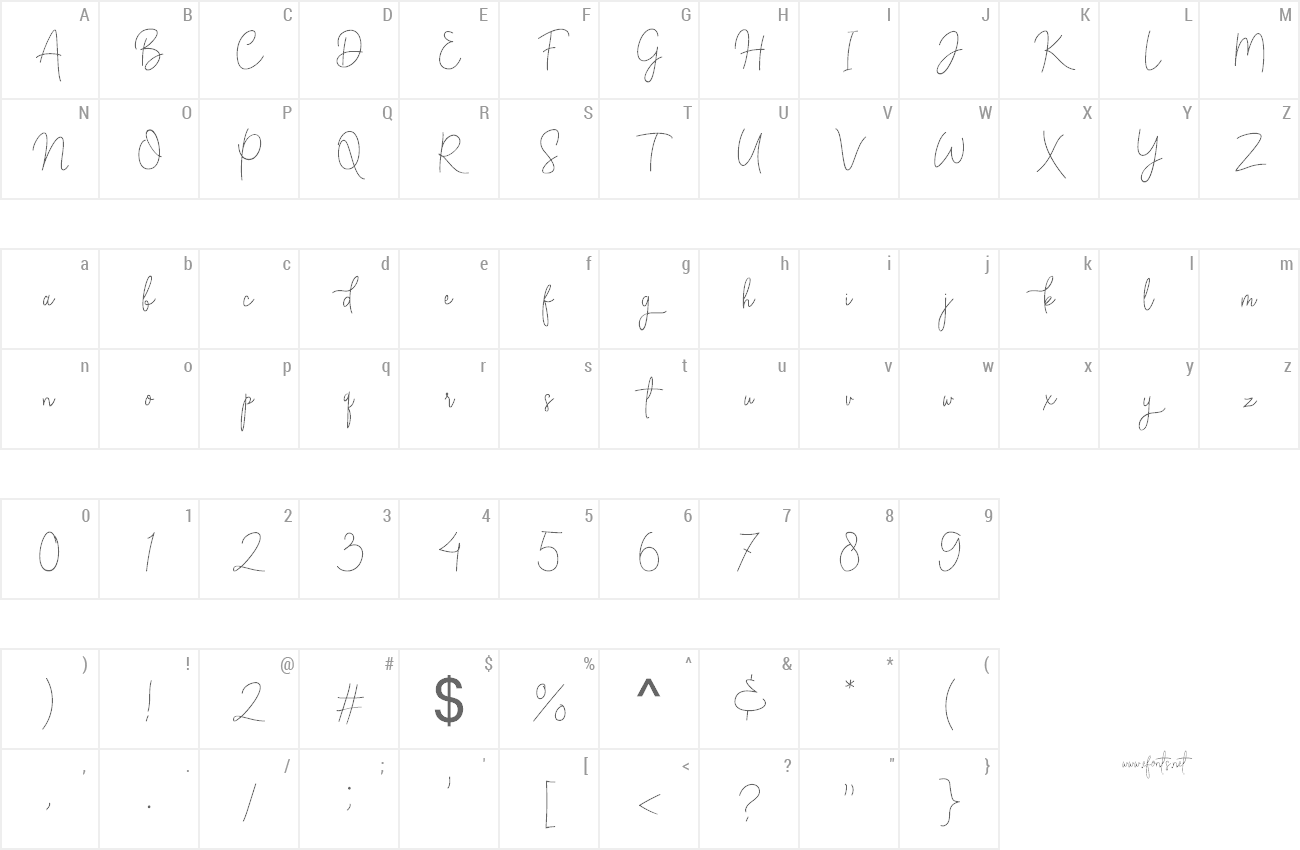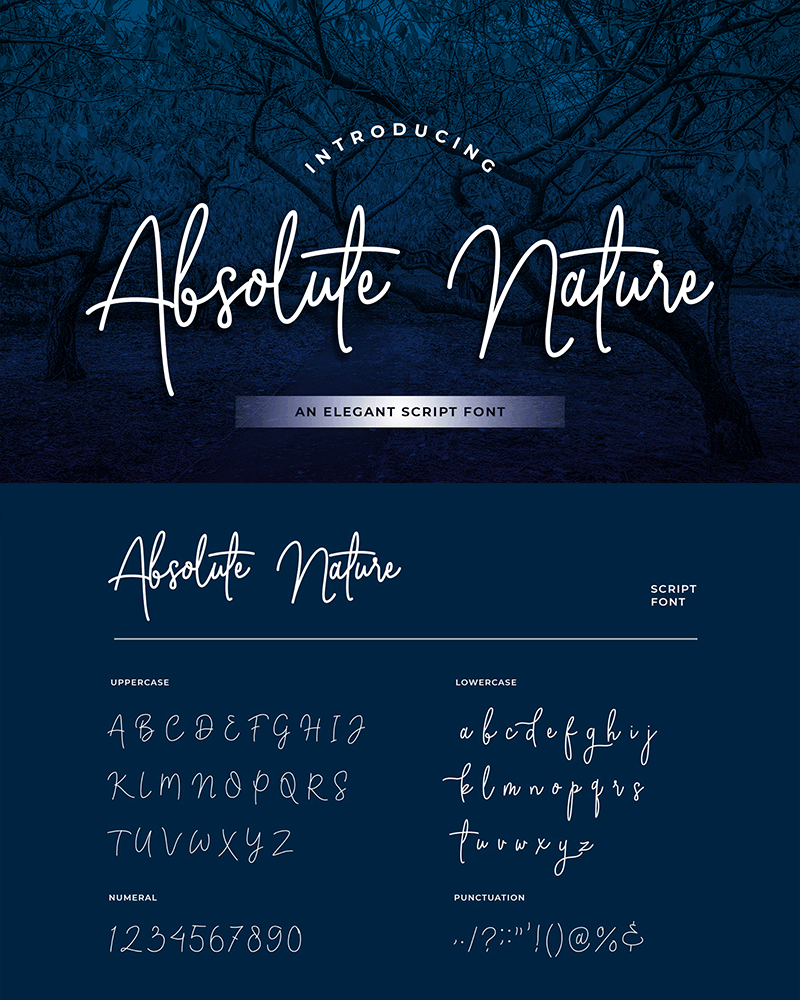
| Font name: | Absolute Nature |
| Author: | UI Creative |
Absolute Nature is a sophisticated signature collection which looks elegant and charming. Included in the modern script family, make this font look dynamic like a sweep of a signature that looks free. Suitable for design project needs ranging from web sites, social media, quotes, brand design, magazines to billboards. You can buy full license from our store for more our fonts: https://uicreative.net/products/fonts-absolute-nature |